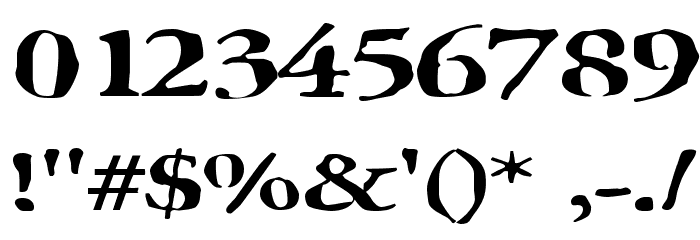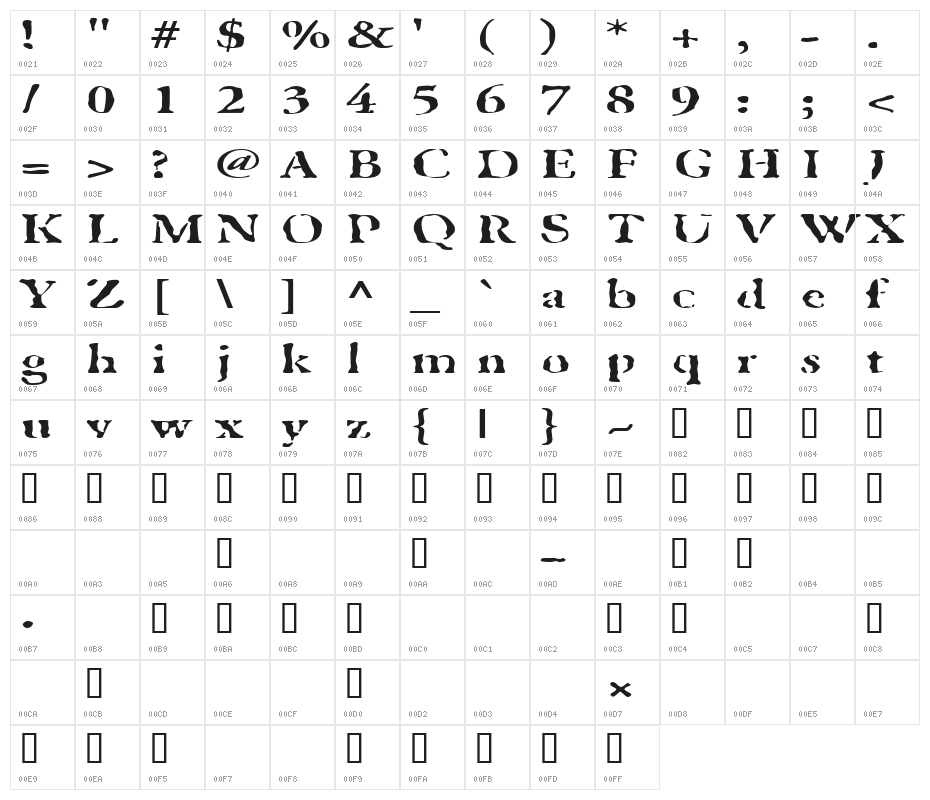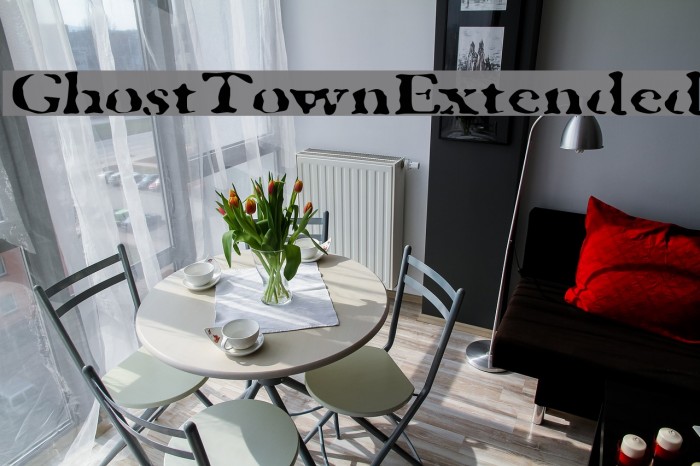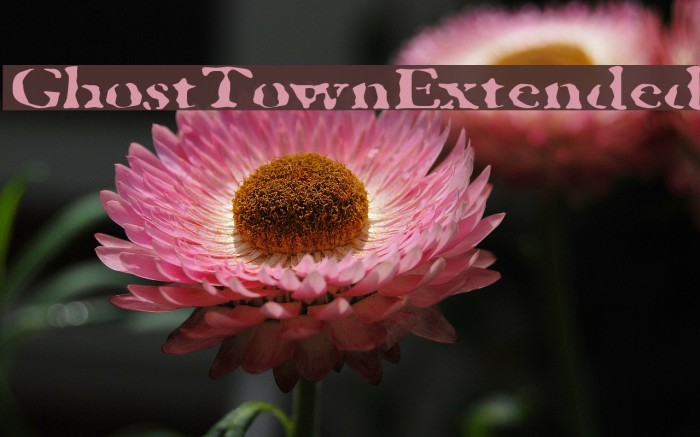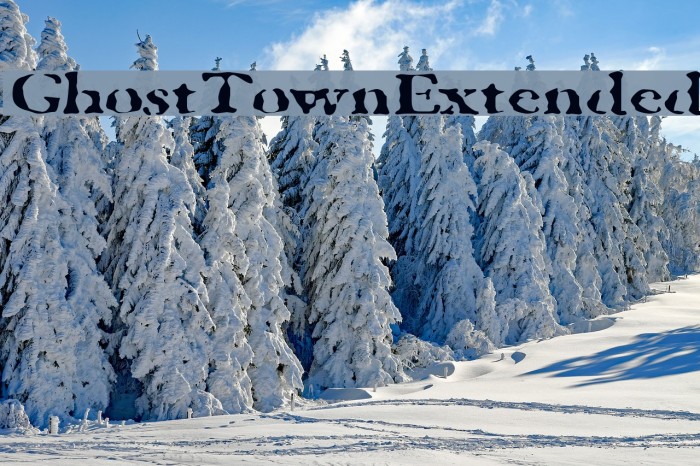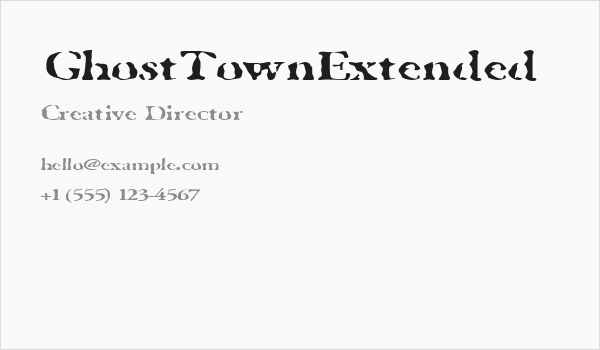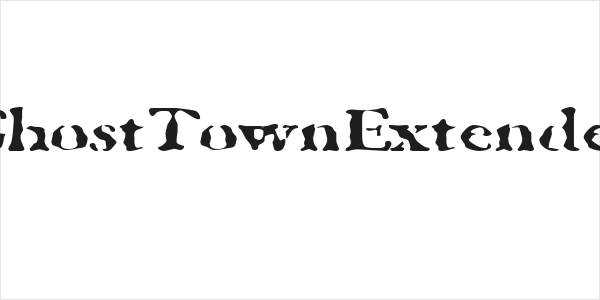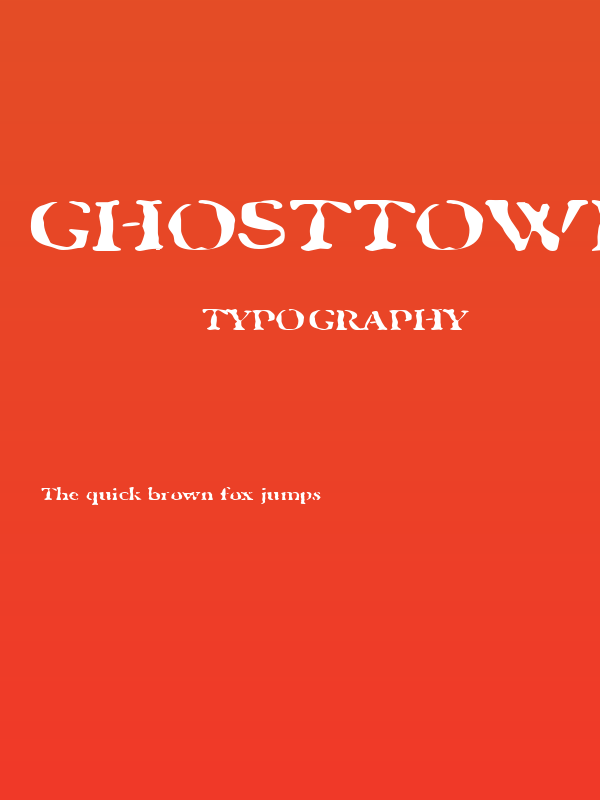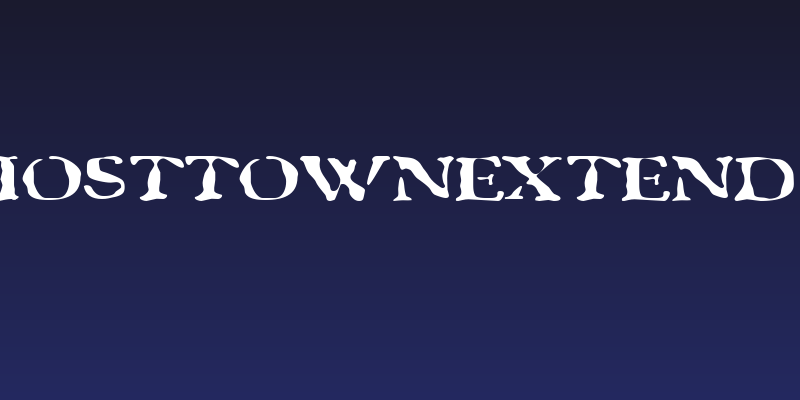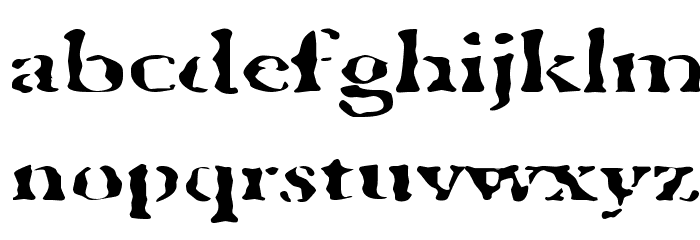
GhostTownExtended Font
GhostTownExtended Description
This font features a bold and dramatic style with a distinct vintage flair. The characters exhibit a rough, textured appearance, reminiscent of old western or ghost town signage. The uppercase and lowercase letters maintain a consistent design, with sharp edges and irregular strokes that give it a hand-crafted feel. Numbers and special characters follow the same aesthetic, ensuring a cohesive look across all text. The font's unique style makes it stand out, ideal for projects that require a touch of nostalgia or a rustic theme.
| Proposed Projects | Ideal for use in posters, logos, branding for vintage-themed events, or any design requiring a rustic, old-world charm. |